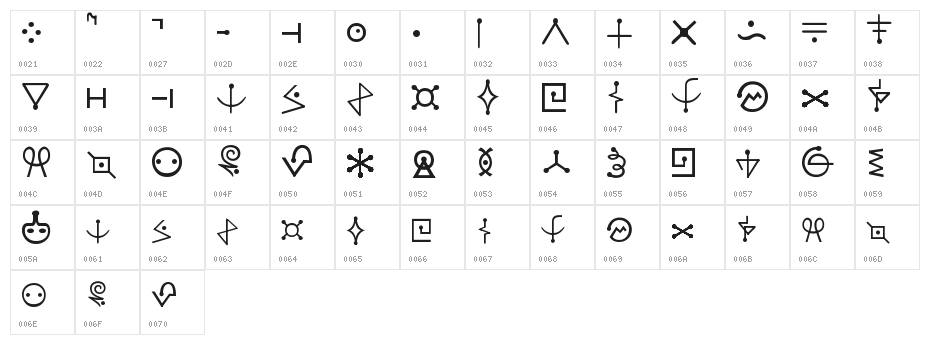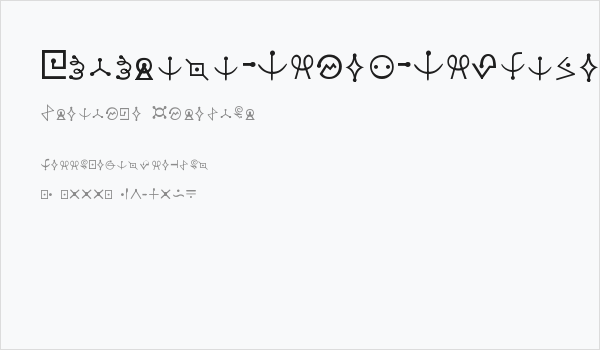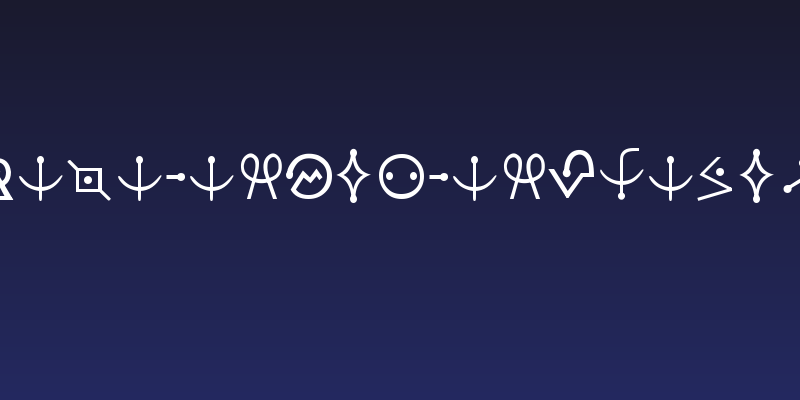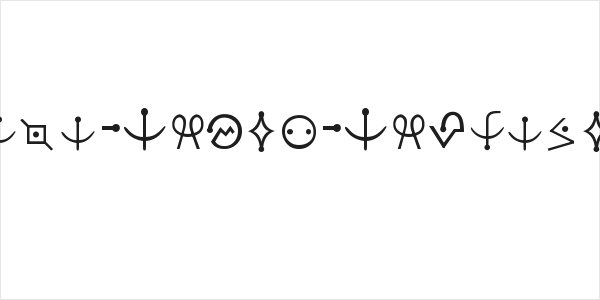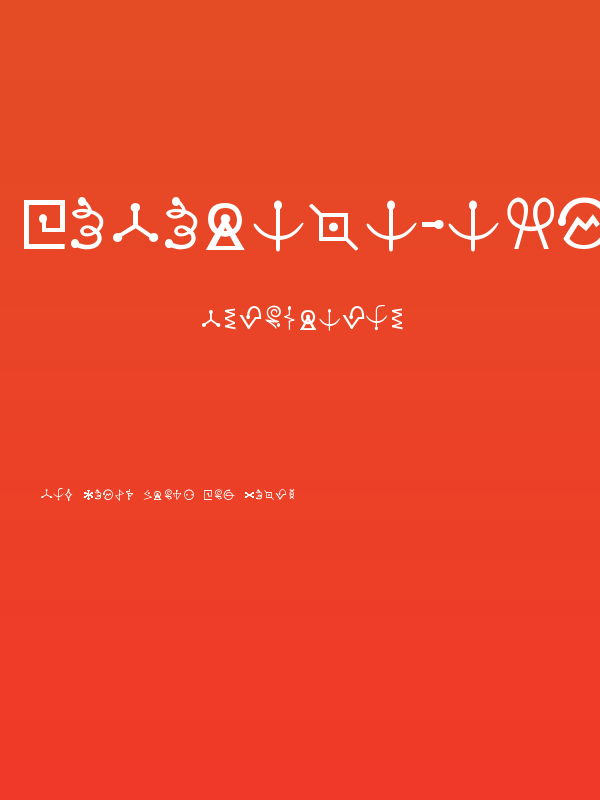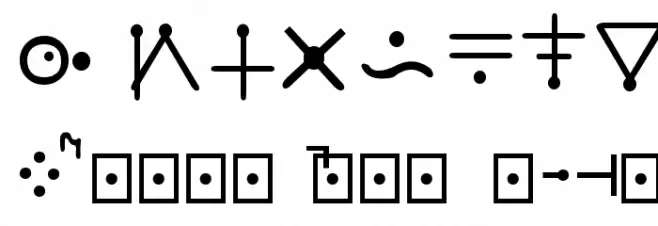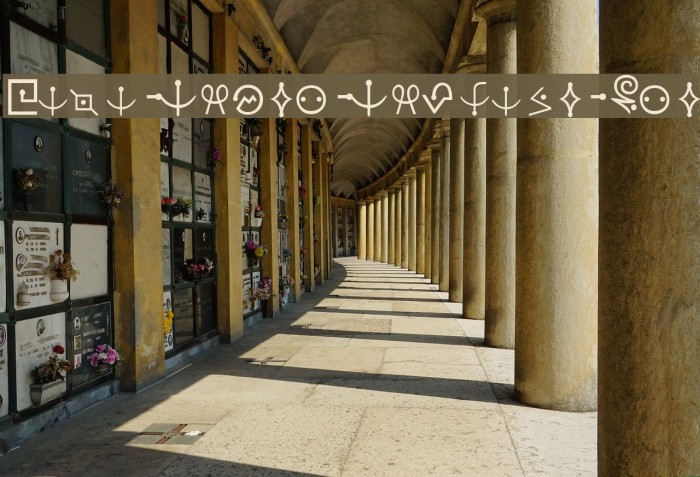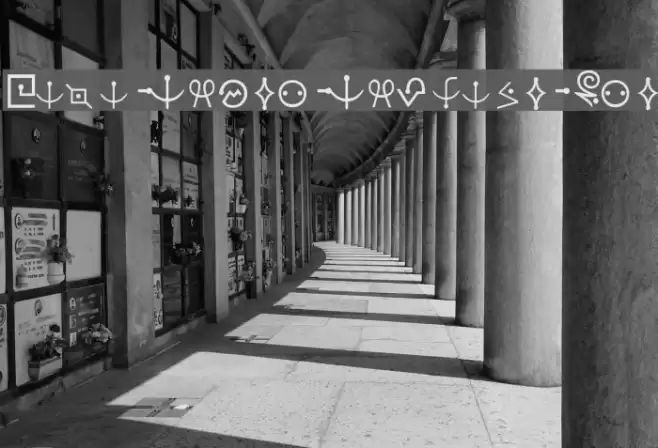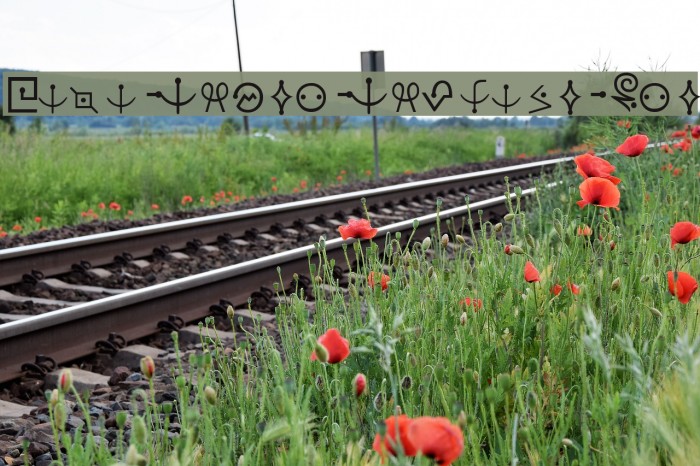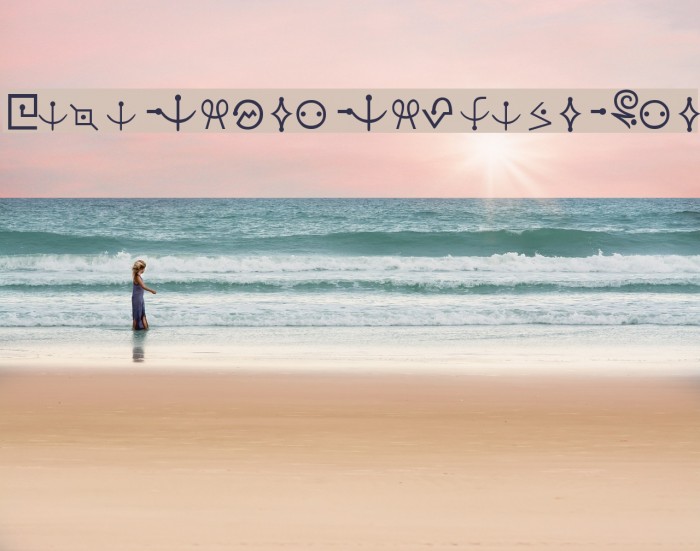
Futurama-Alien-Alphabet-One Font
Futurama-Alien-Alphabet-One Description
This font features a series of unique, abstract symbols that resemble an alien script. Each character is distinct, with geometric shapes and lines that create a futuristic and otherworldly appearance. The symbols are bold and striking, with a consistent line thickness throughout. The design is highly decorative, making it suitable for creative and themed projects. The characters do not follow traditional alphabetical forms, instead offering a visual language that is both intriguing and mysterious. This font is perfect for projects that require a touch of science fiction or fantasy, providing a visual element that captures the imagination.
| Overall Style | Futuristic, Decorative |
| Use Case | Logos, Creative artwork, Themed designs |
| Proposed Projects | Ideal for science fiction themed designs, movie posters, video game interfaces, and creative artwork. |